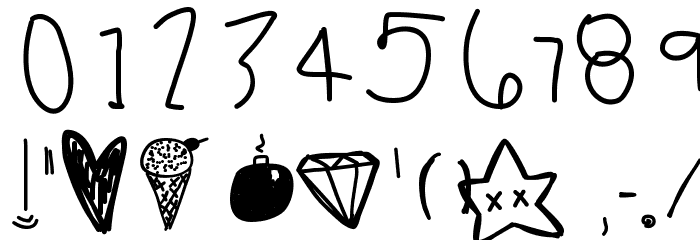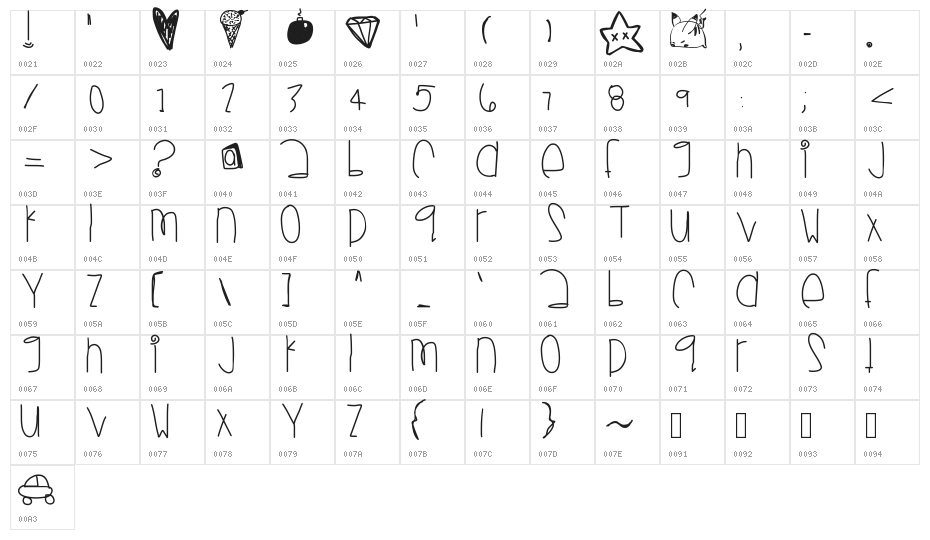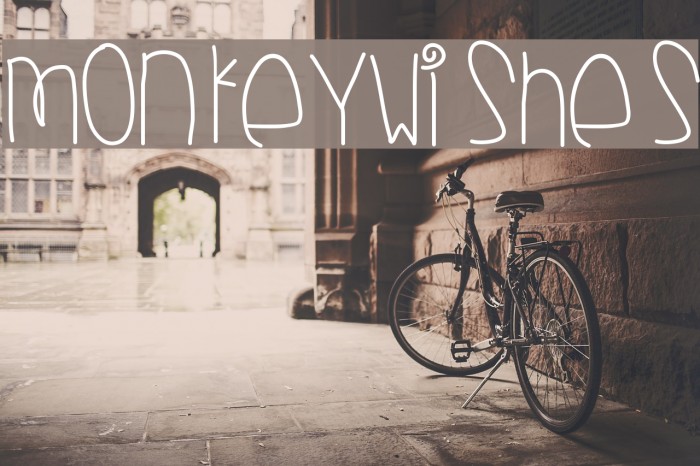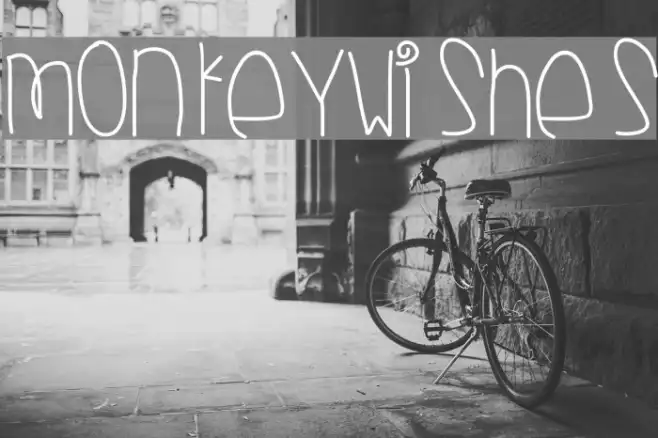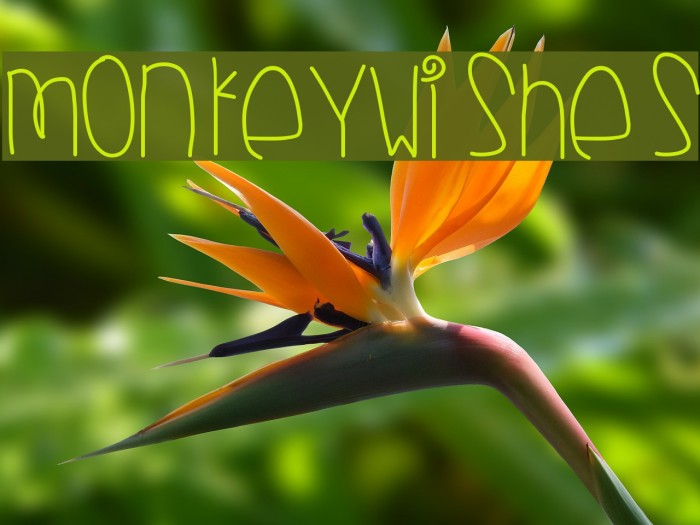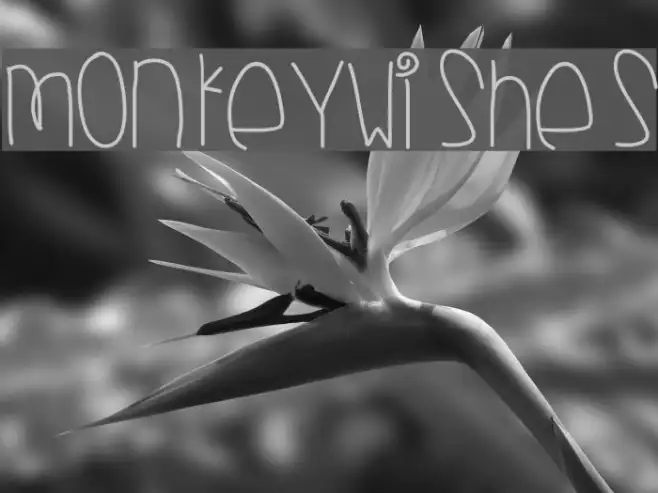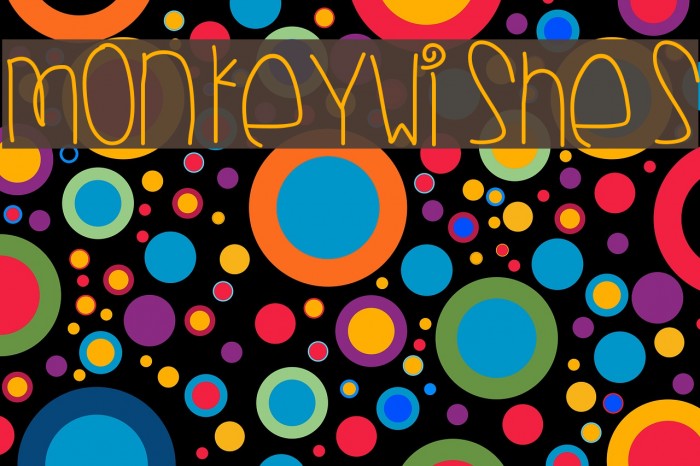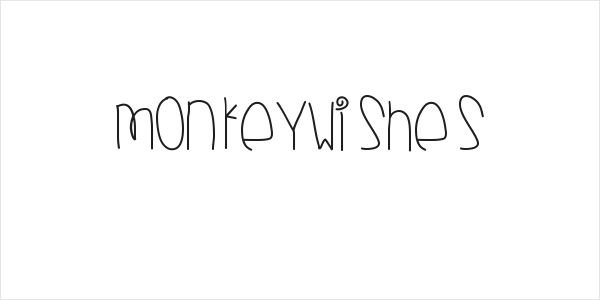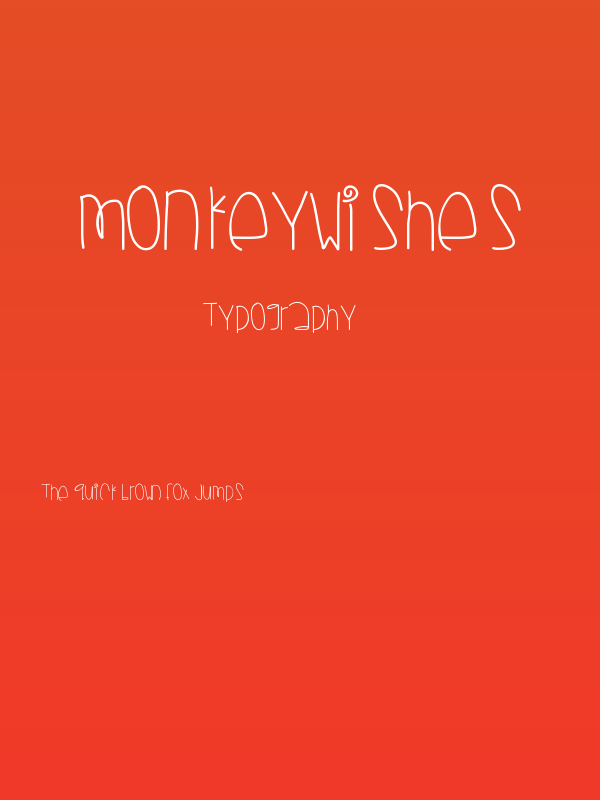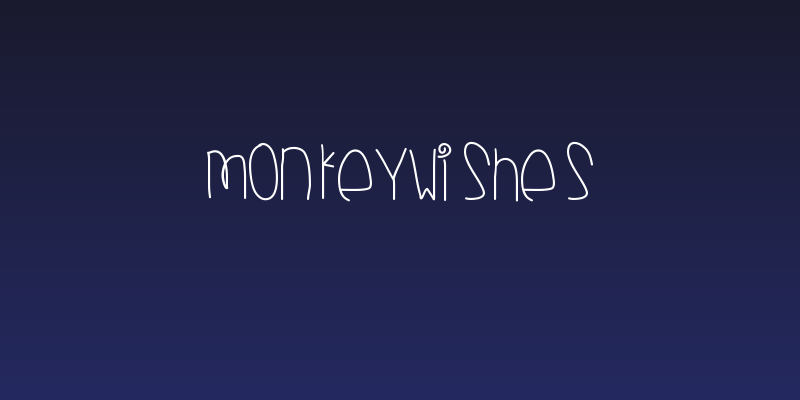
MonkeyWishes Font
MonkeyWishes Description
This playful and whimsical font features a hand-drawn style with a casual, informal appearance. The characters are tall and narrow, with a slight slant that adds to their quirky charm. Each letter has unique, irregular strokes that give the font a lively and energetic feel. The numbers and special characters maintain this playful aesthetic, with creative and imaginative designs that complement the overall style. This font is perfect for projects that require a fun and lighthearted touch.